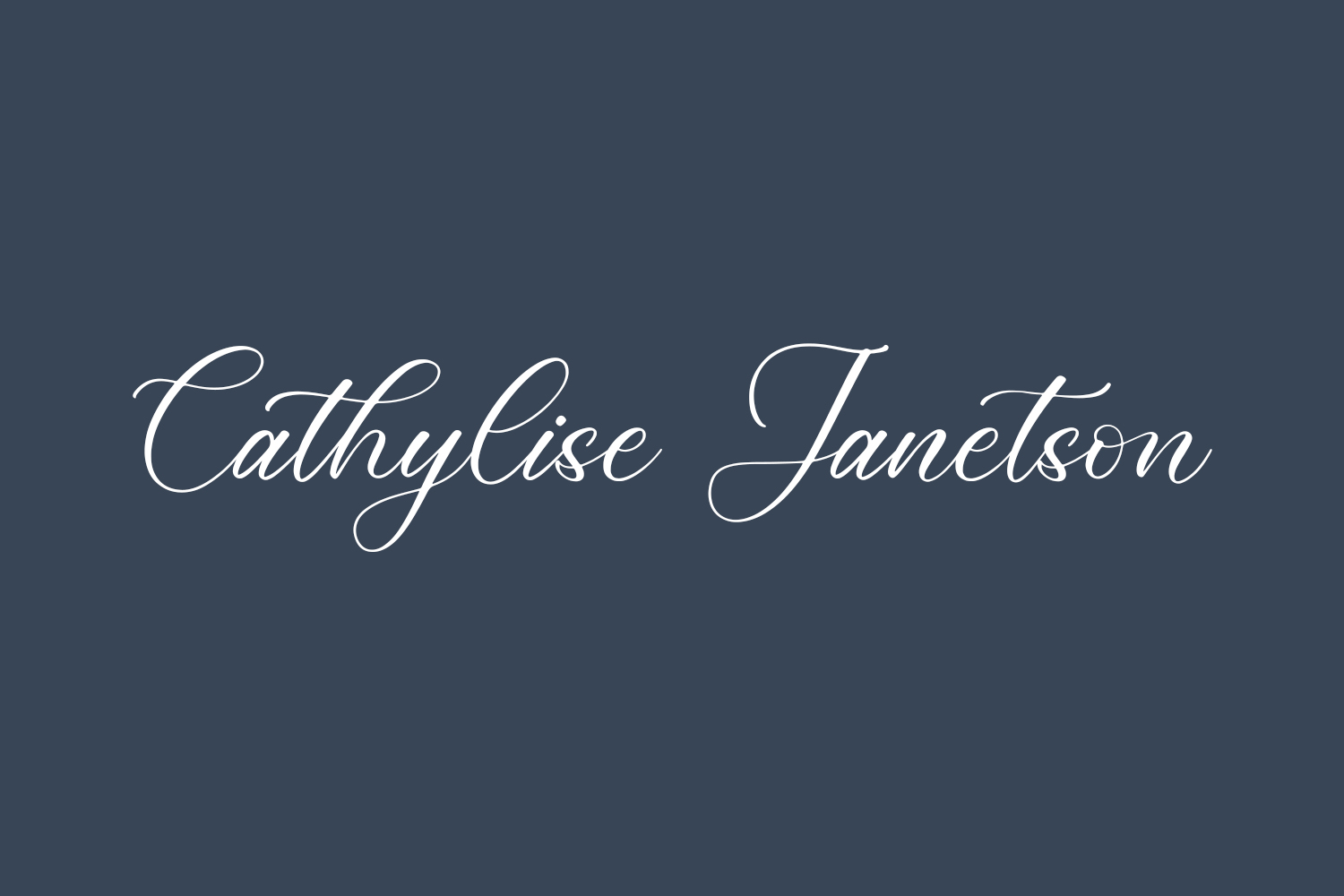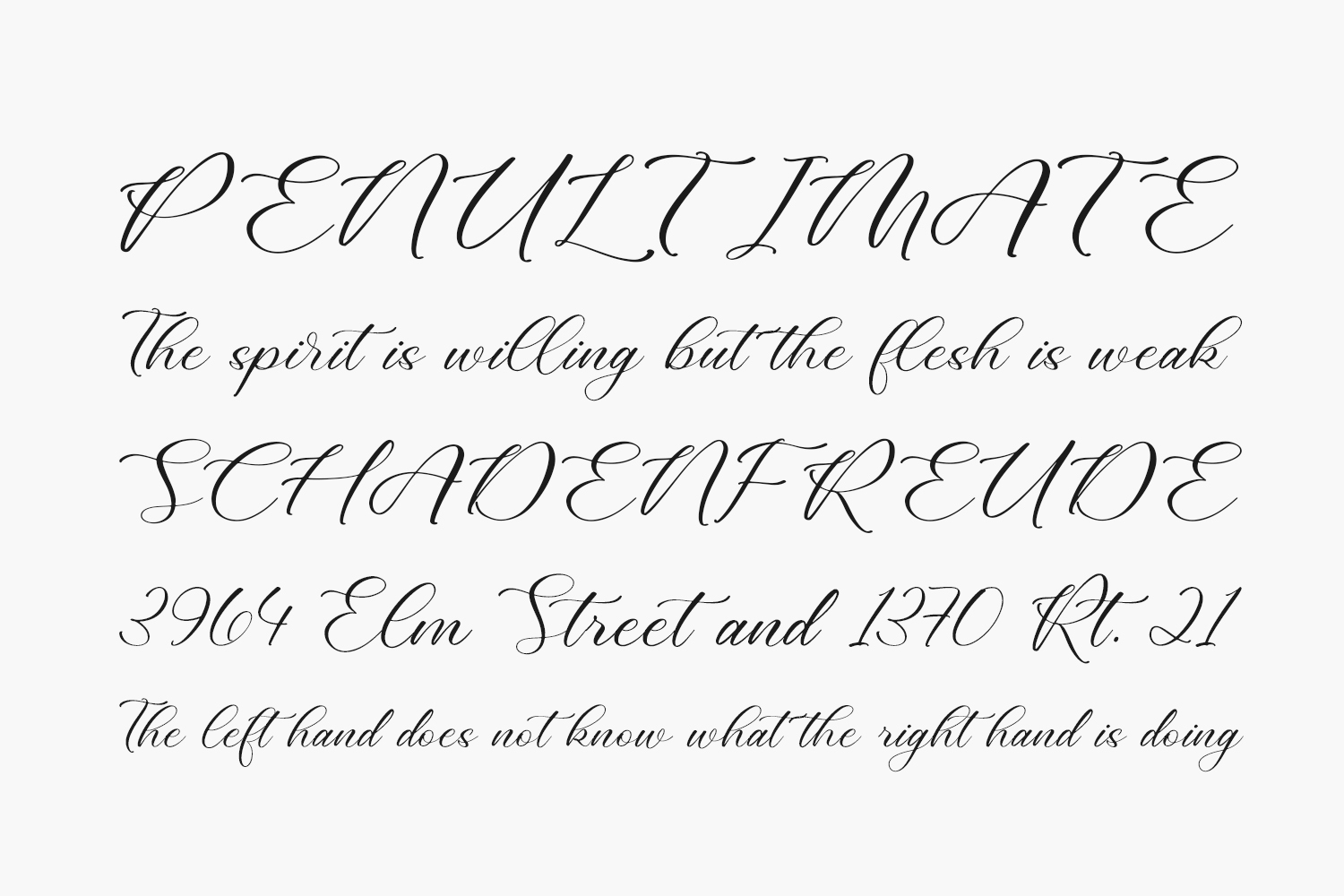
Meet Cathylise Janetson Free Font: an exquisite script font that exudes brilliance. Meticulously crafted with intricate details, this font is a valuable addition to your library, capable of elevating any project across various themes and styles. Download the font for free if you need it for personal use or purchase the full version for commercial use.